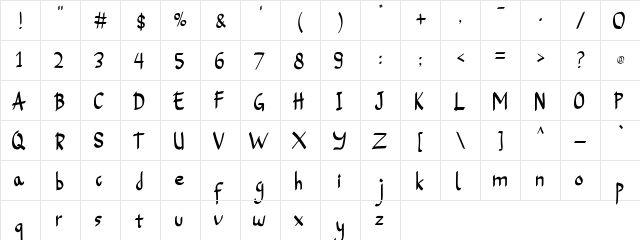
Lightsky Regular
| Foundry | Wondoo Studio Co. |
| Designer | Herya Wildan |
Design Context for Lightsky Typeface
Lightsky is a composed and adaptable typeface that performs quietly and consistently across a wide range of design contexts. The delicate stroke weight brings airiness and refinement to layouts.